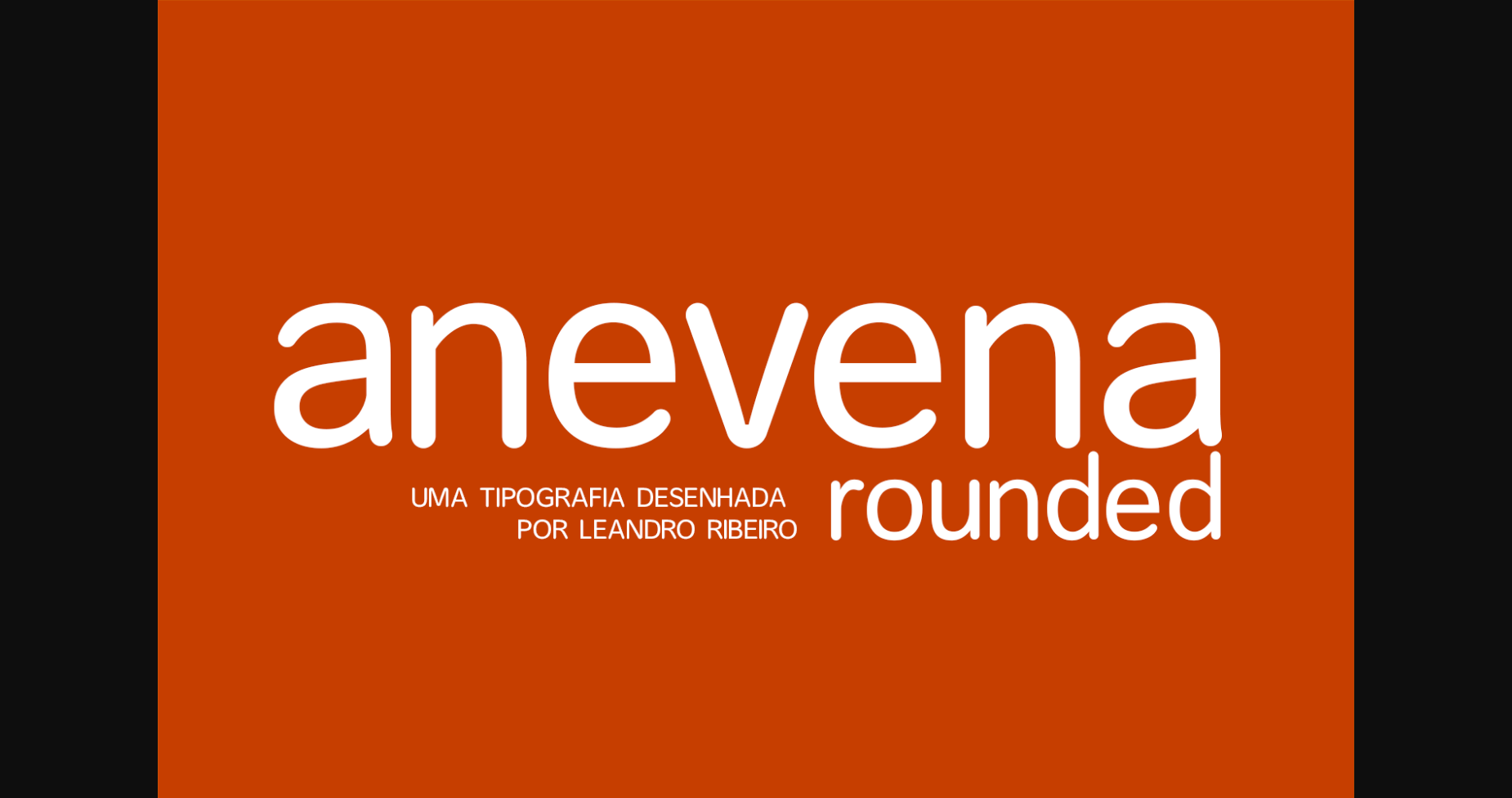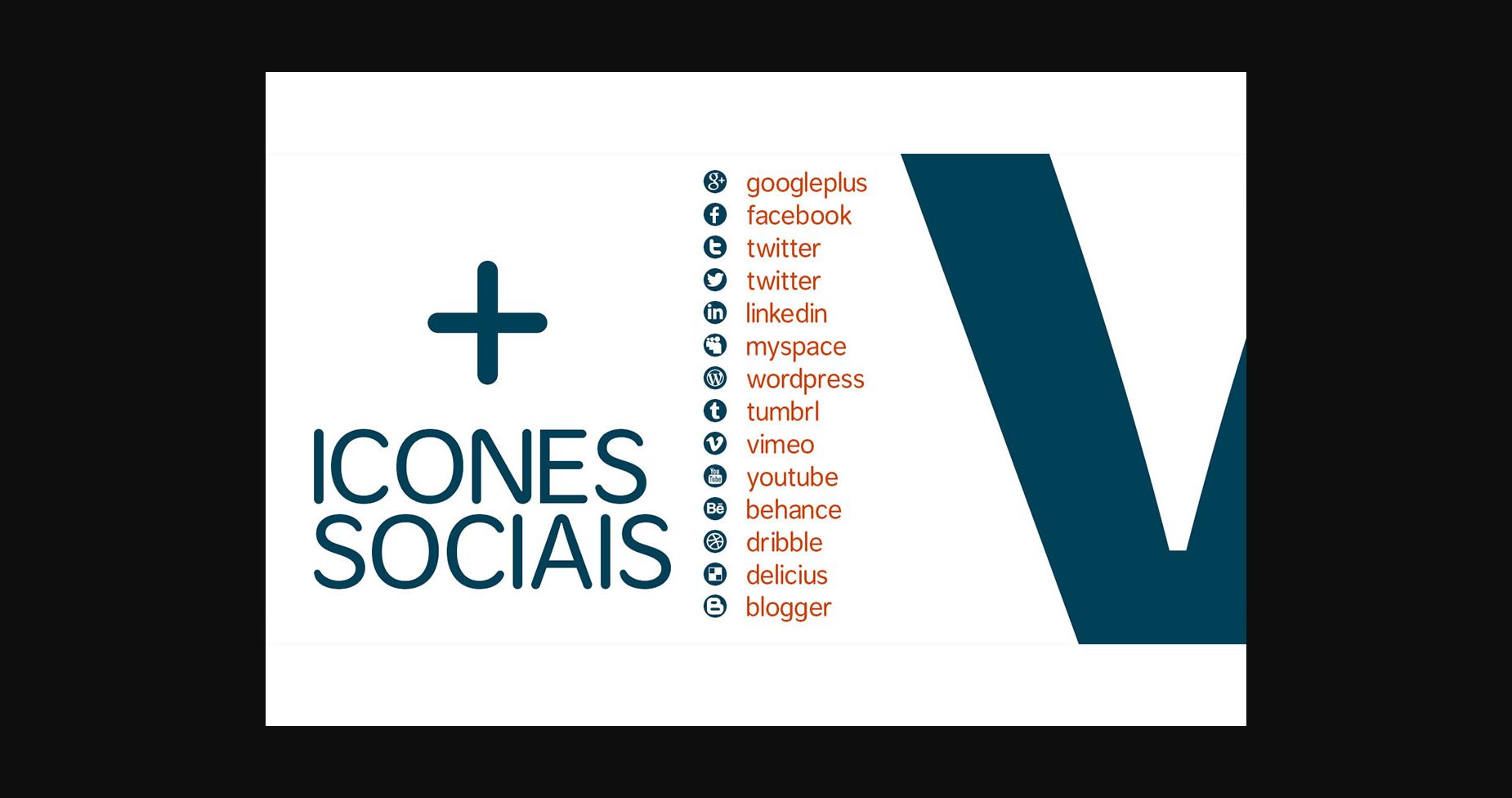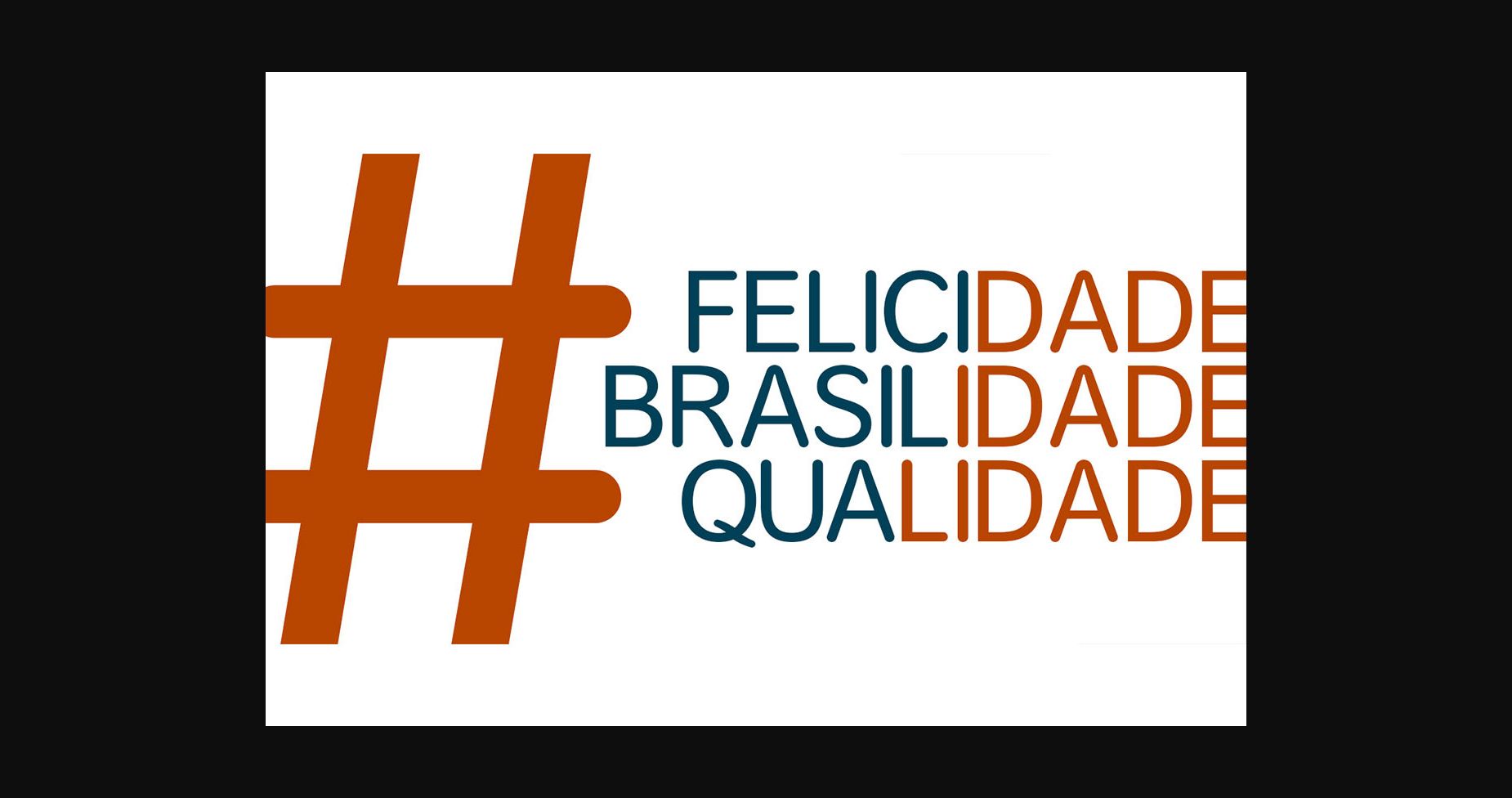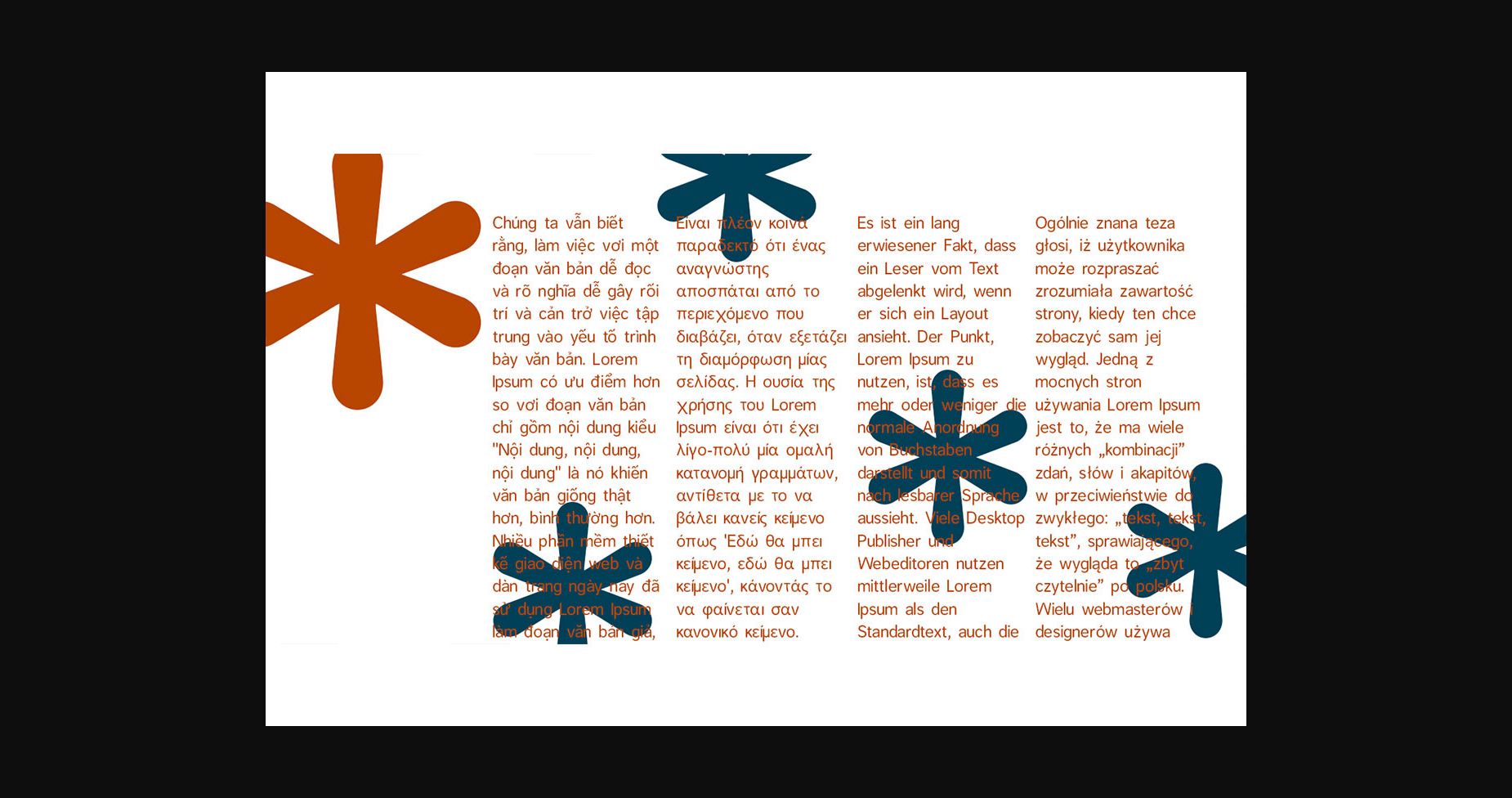
Anevena Rounded Font
About Anevena Rounded Font
Anevena Rounded is a cool and adaptable sans serif font. It is suitable for book texts, documentation, business reports, business correspondence, magazines, newspapers, posters, advertisements, multimedia, and corporate design.